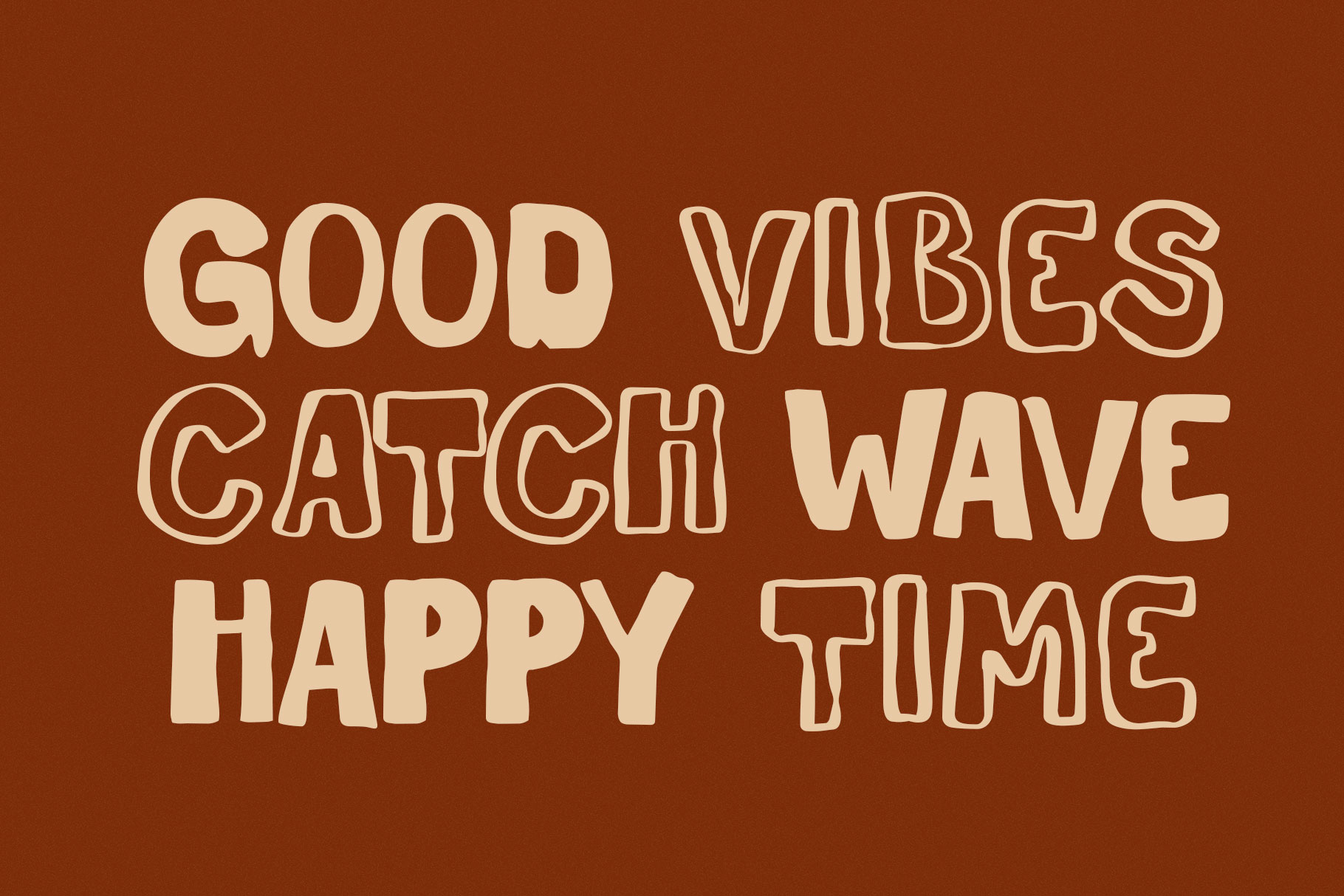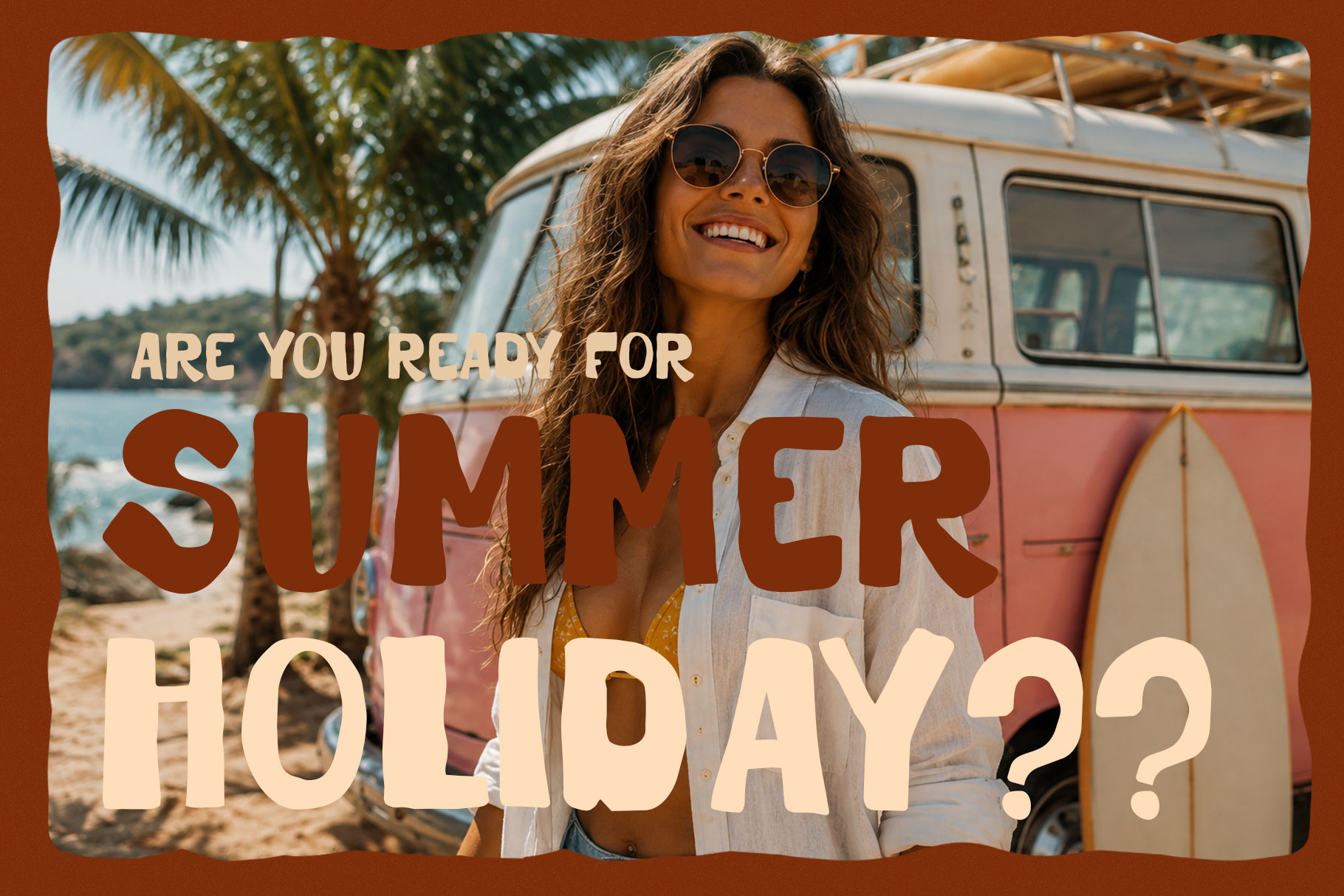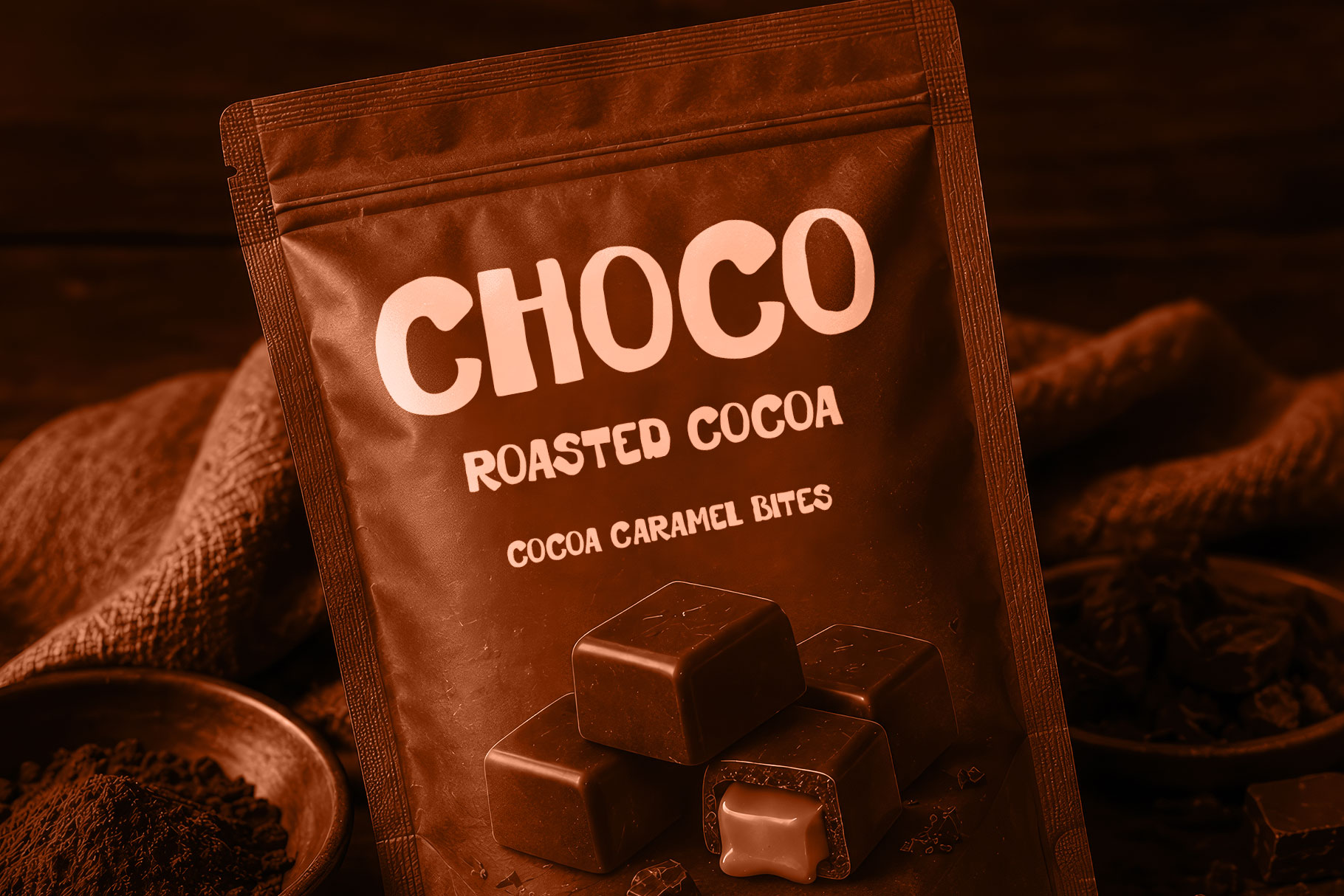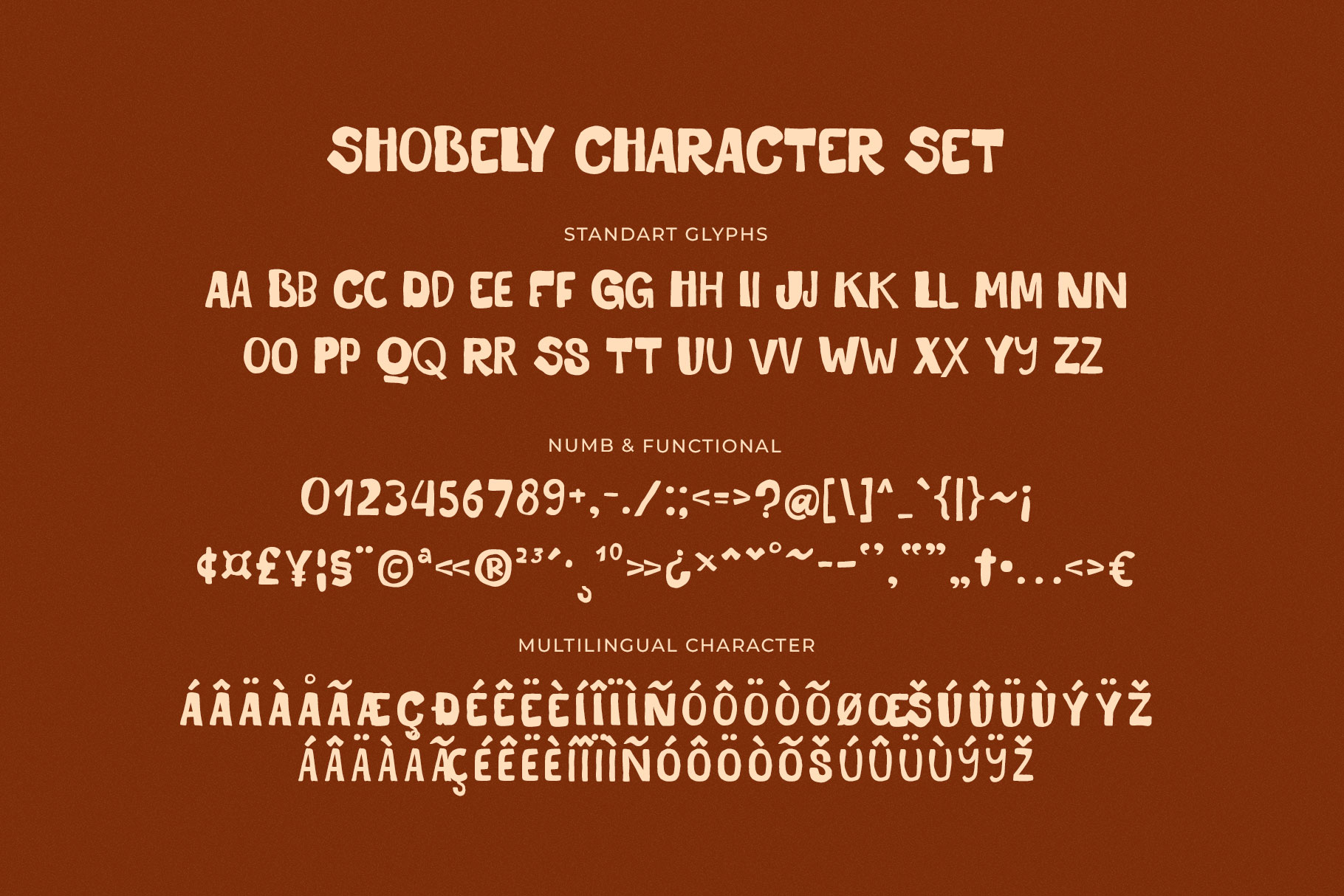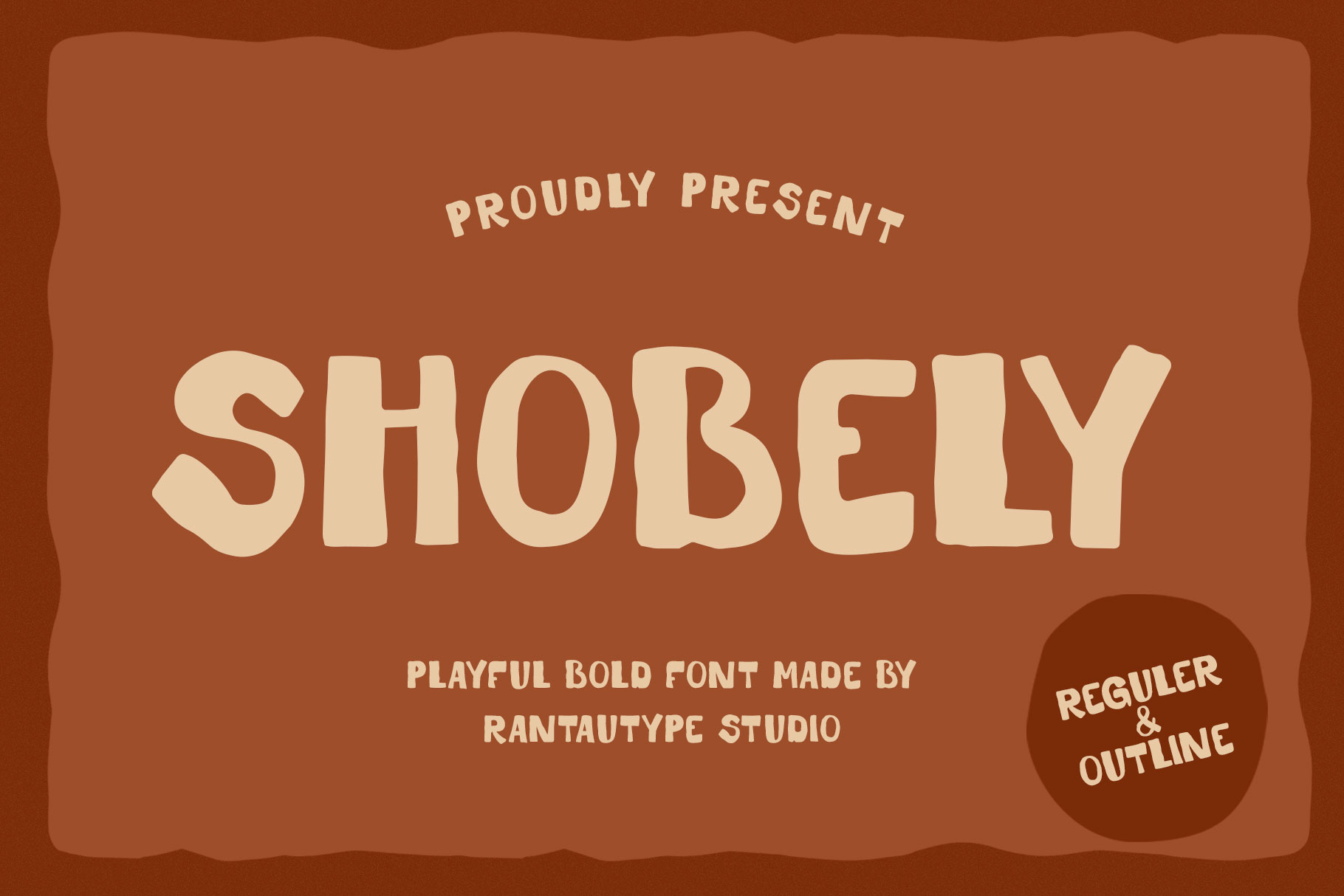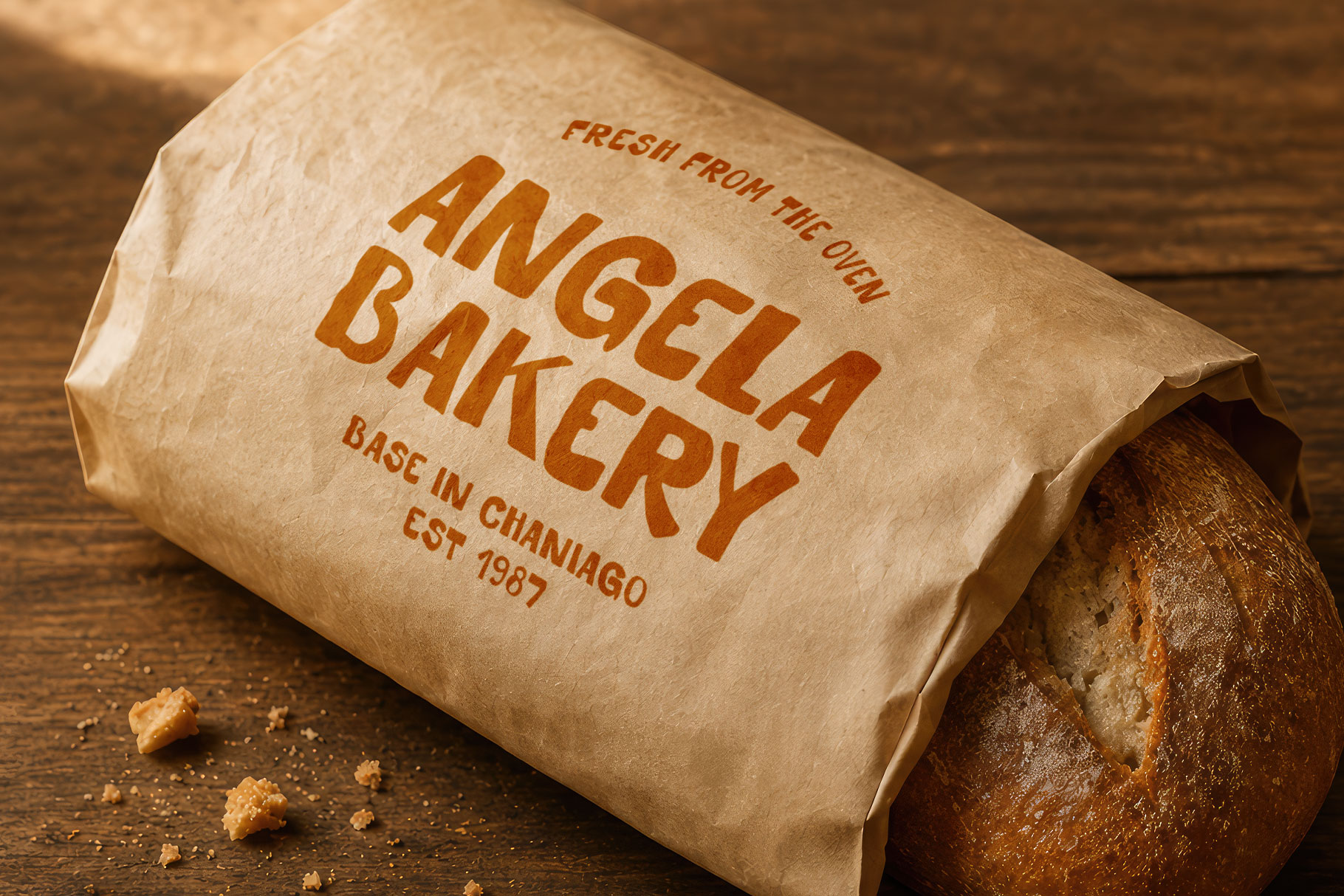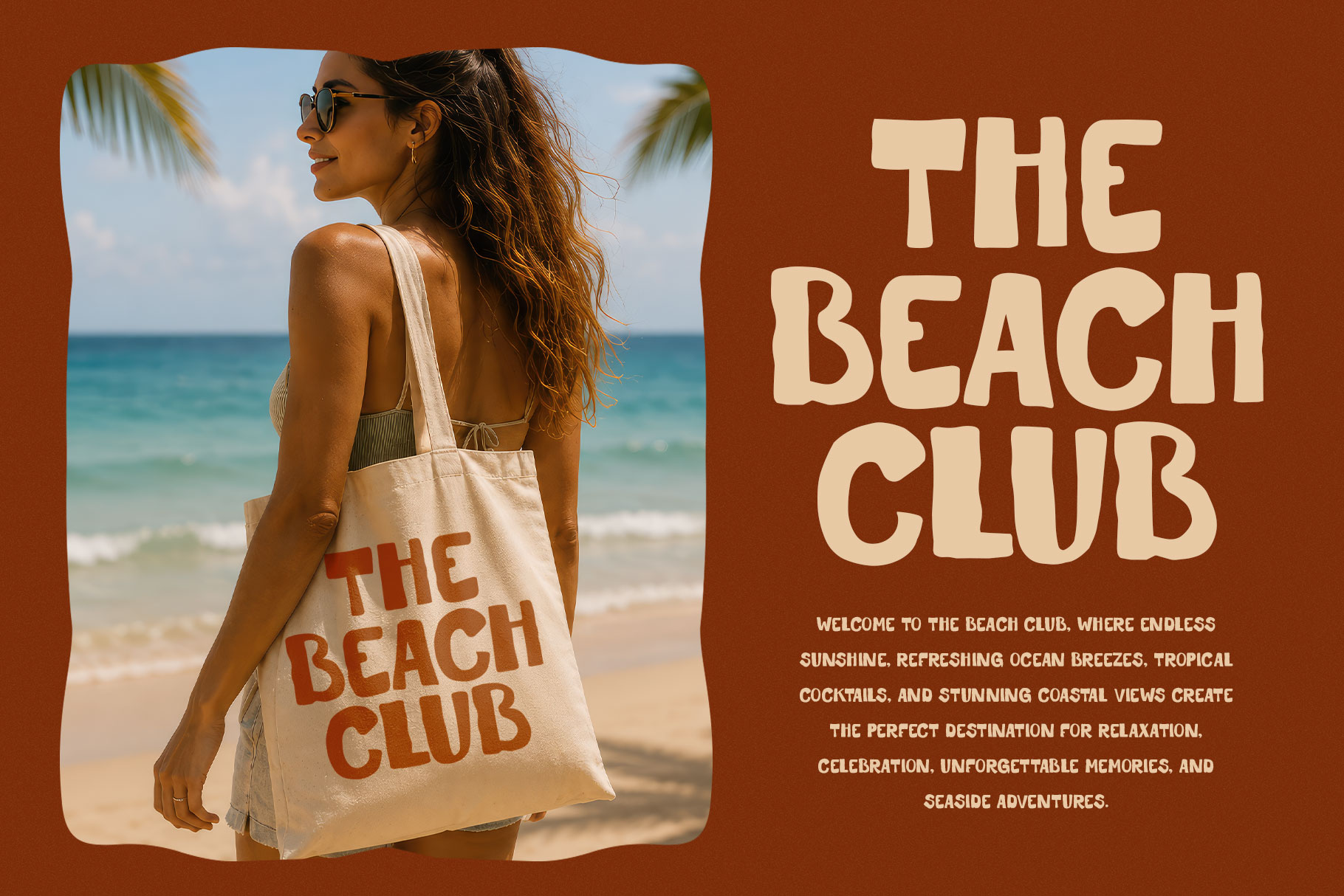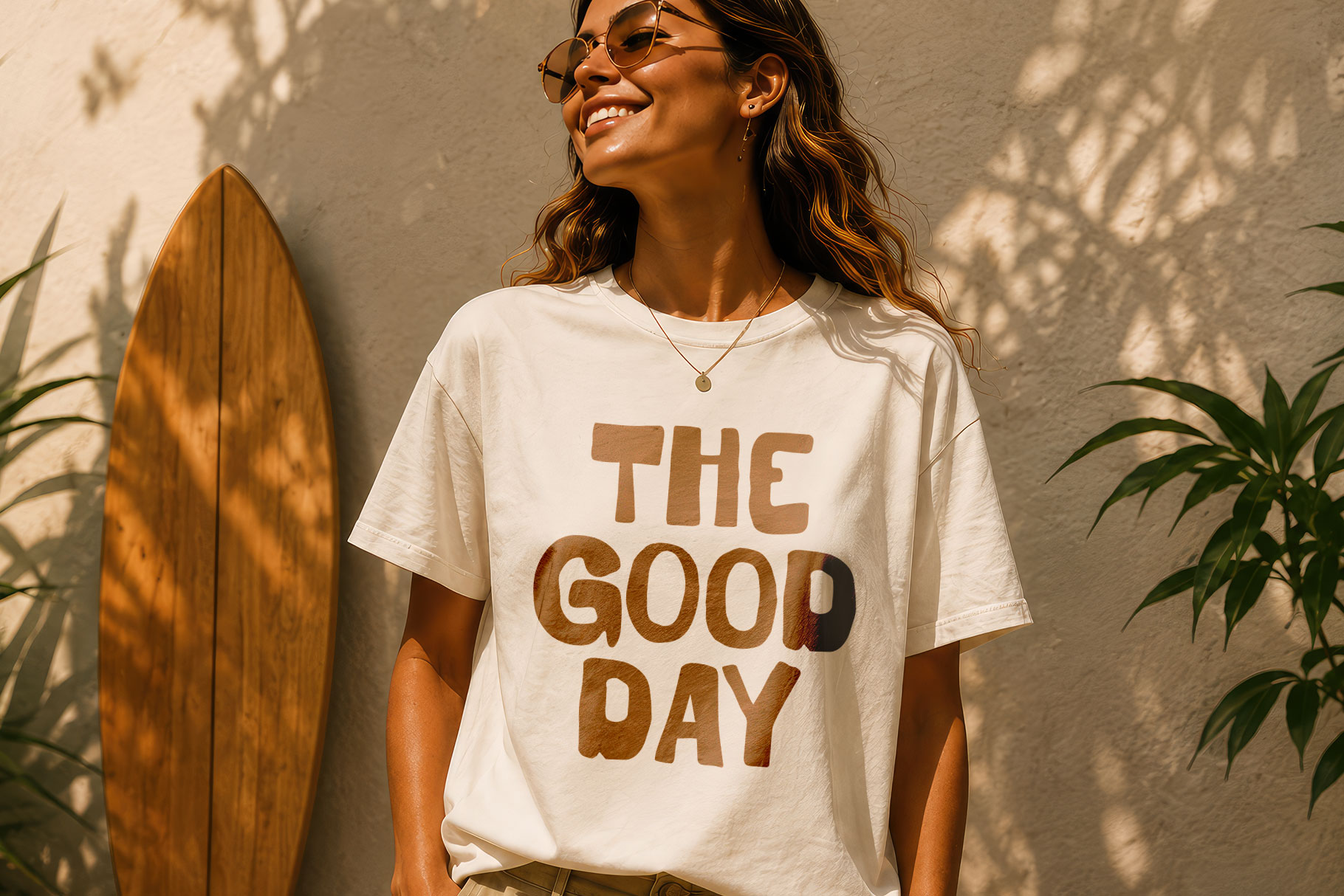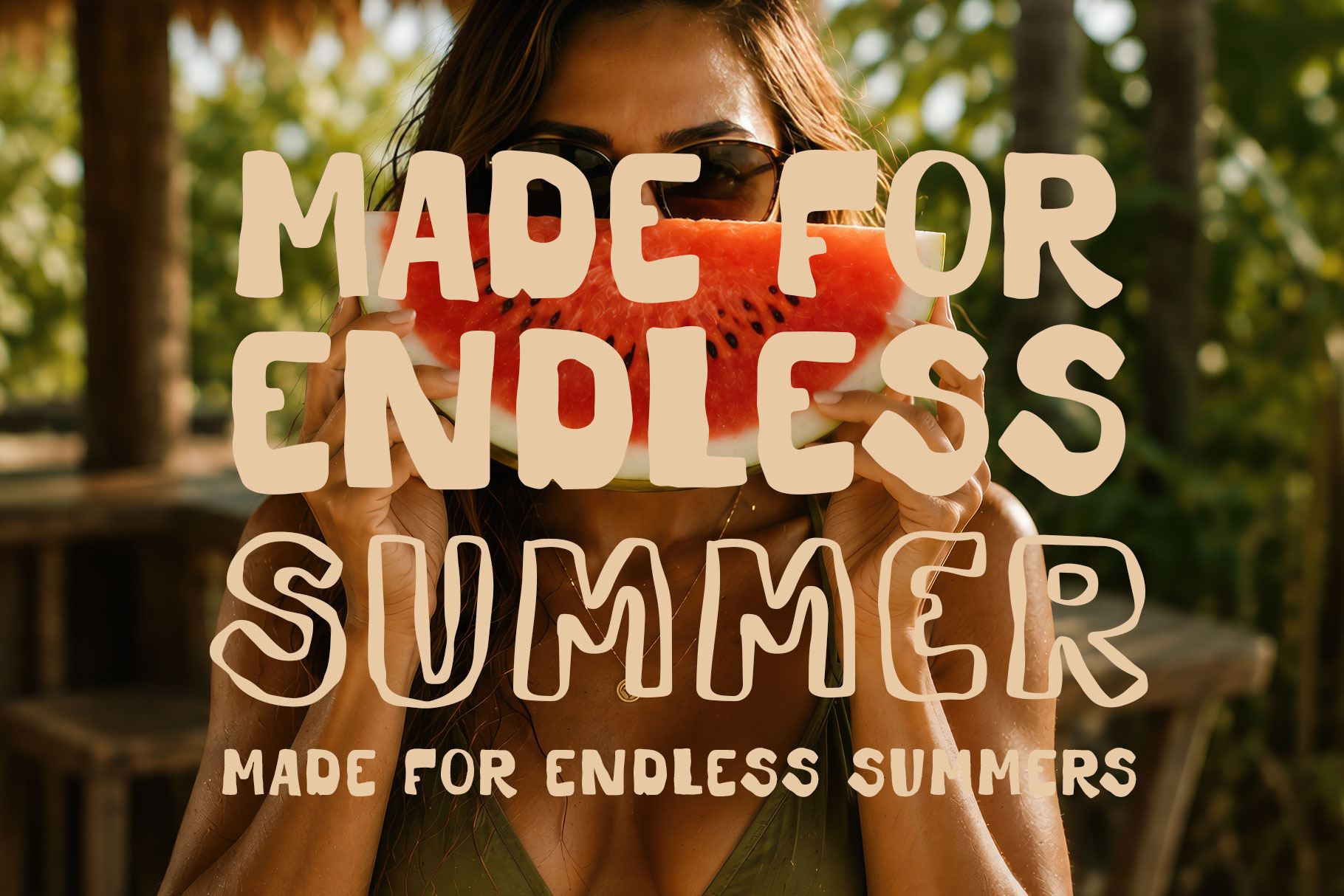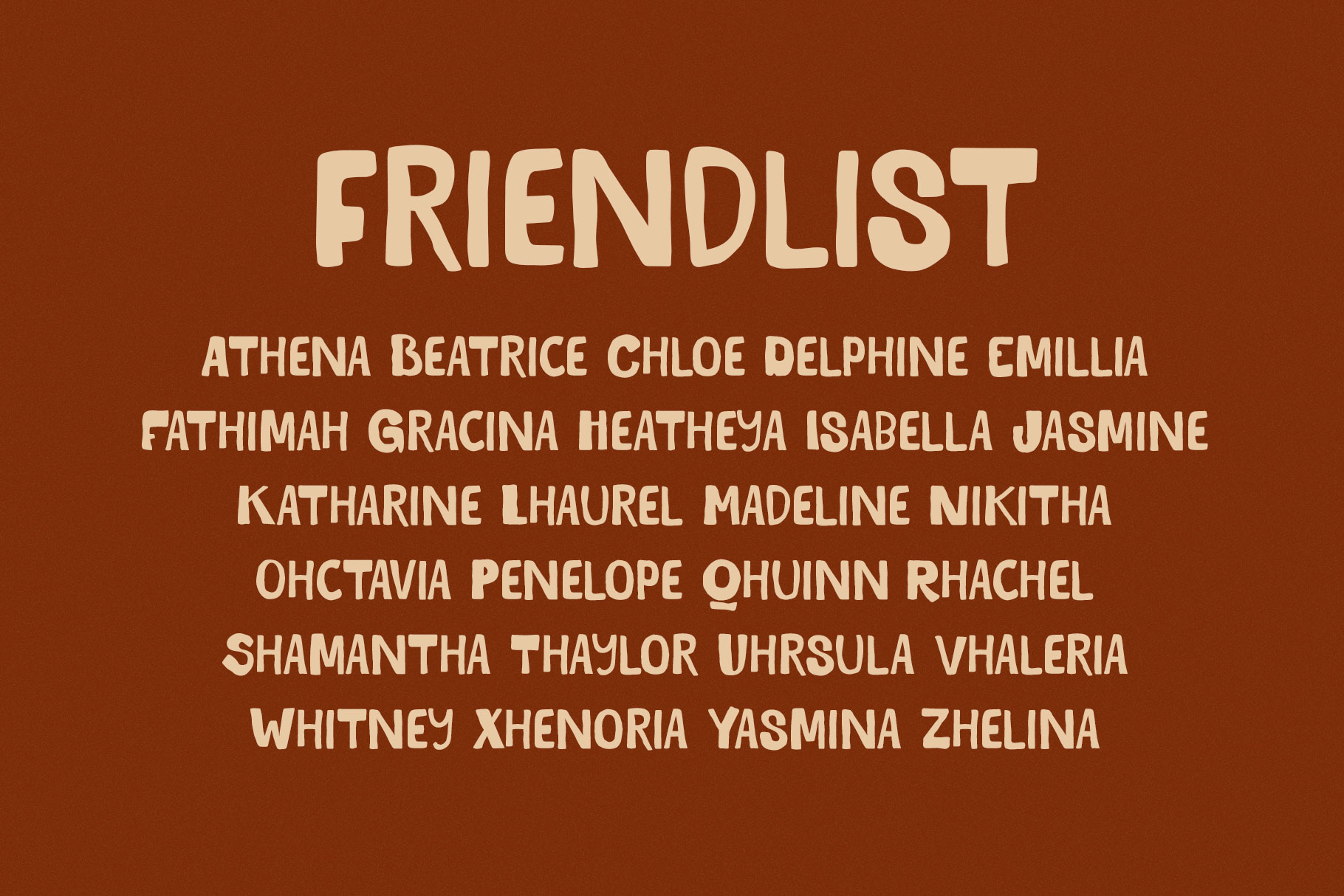
Shobely is playful bold font brings a fun, energetic personality to every design with its rounded edges, and charmingly irregular letterforms. Its hand-drawn appearance creates a warm, friendly character while the heavy weight gives it strong visual impact and excellent readability.
Shobely is a perfectly choice for any creative endeavor, creating, modern, lifestyle design such as logotype, title, cover, branding, invitations, social media posts, advertisements, printed quotes, product packaging, corporate brand, product designs, labels, watermarks, special events and any other project with playful touch.